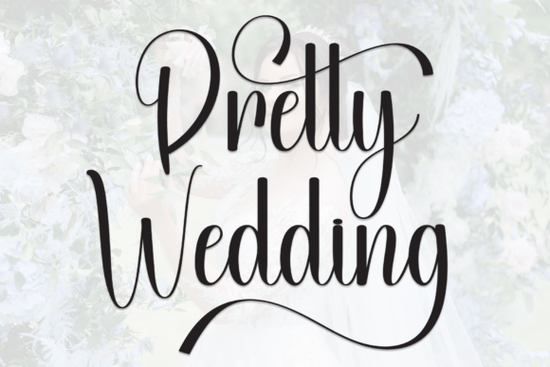
If you're planning a wedding or working on wedding-related stationery, finding the right handwritten font can make all the difference. Pretty Wedding Font is a smudge-effect script that brings a playful, hand-lettered feel to invitations, place cards, and signage. Its slightly imperfect edges give it a warm, personal touch like something you'd write by hand with a favorite pen.
What makes Pretty Wedding Font different from other script fonts?
Many script fonts look too perfect. They can feel sterile, especially for a cozy, intimate event like a wedding. Pretty Wedding Font uses a deliberate smudge texture that adds depth without making text hard to read. The letters feel affectionate and lively, not stiff. This makes it a good choice for couples who want their paper goods to reflect a relaxed, joyful vibe rather than a formal one.
The font includes uppercase and lowercase characters, numbers, and punctuation, so you can mix it with other styles easily. Pair it with a clean sans serif for a modern contrast, or use it alone for a bold statement on a minimalist invite.
How can you use Pretty Wedding Font in your projects?
Whether you're a print-on-demand seller, a small business owner designing custom stationery, or a hobbyist working on a personal project, this font fits many applications:
- Wedding invitations – Use it for the couple's names or the main heading. The smudge effect pairs nicely with botanical or watercolor accents.
- Thank-you cards and envelopes – A handwritten look feels more personal than a typed address.
- Signage – Welcome signs, seating charts, and bar menus all benefit from the font's approachable style.
- Social media graphics – Edit photos with the font to announce engagements, bridal showers, or wedding day highlights.
- DIY favor tags – Print on kraft paper or sticker sheets for an handmade look.
The texture works especially well when printed on uncoated paper or textured cardstock. If you're selling digital templates, you can offer a "handwritten" version using this font to stand out from the usual script styles.
What other fonts work well with Pretty Wedding Font?
Is Pretty Wedding Font easy to use for beginners?
Because the font has a textured finish, avoid scaling it too large on screen – the effect is designed for print at normal sizes. If you're using it for web graphics, test readability on mobile devices first.
Practical checklist for using Pretty Wedding Font
- Test print – Print a sample on your chosen paper to see how the smudge effect looks. Different papers absorb ink differently.
- Pair wisely – Combine with a clean sans serif like Montserrat or Lato for body text. Avoid pairing with another textured script to keep it readable.
- Use for short phrases – The font shines in headings and names, not long paragraphs. Keep it to 3–5 words per line for best impact.
- Proofread carefully – Letter spacing can sometimes create unexpected gaps or overlaps with certain letter combinations. Adjust kerning manually if needed.
- Match the mood – This font works best for rustic, boho, garden, or casual weddings. For ultra‑formal black‑tie events, consider a cleaner script instead.